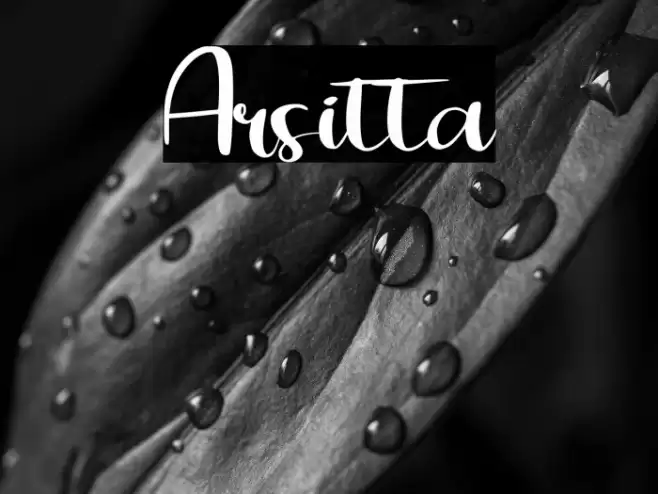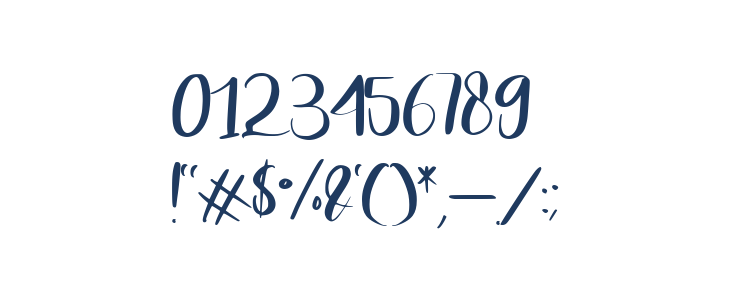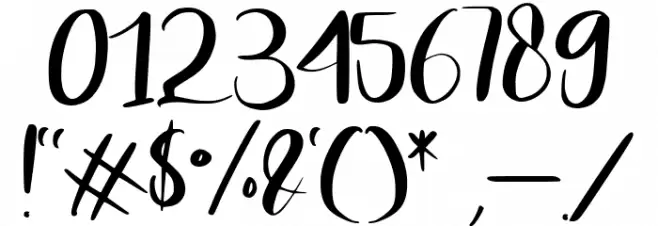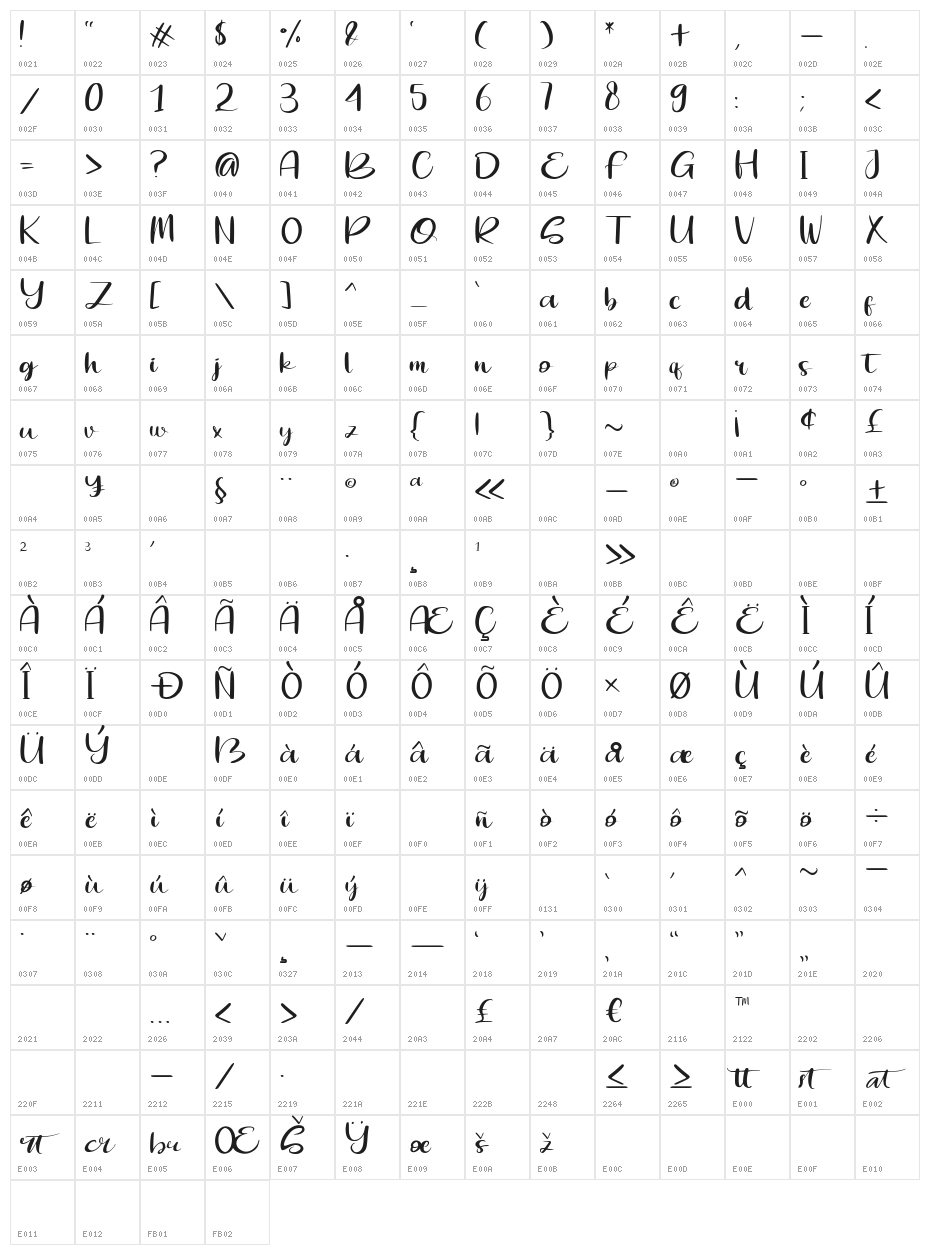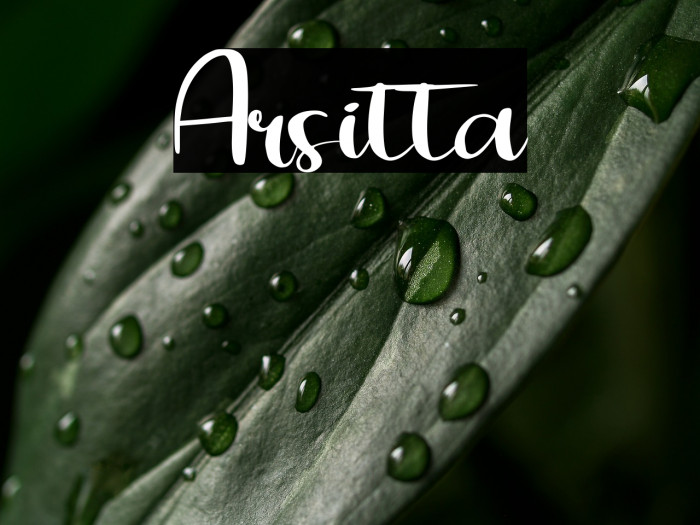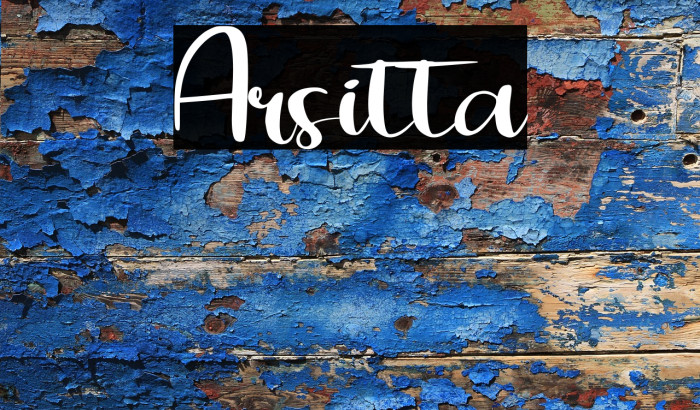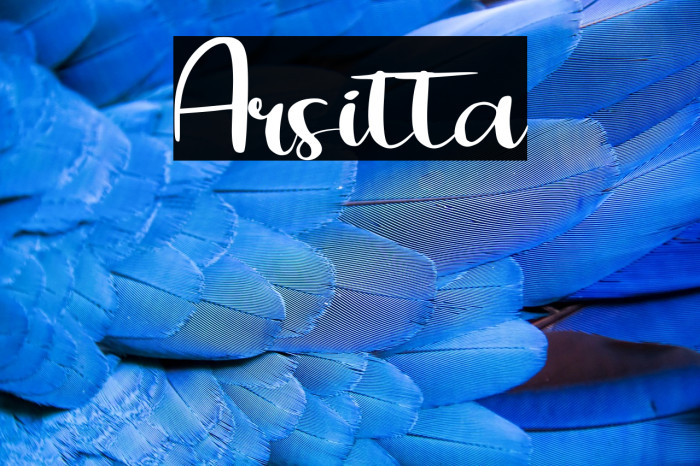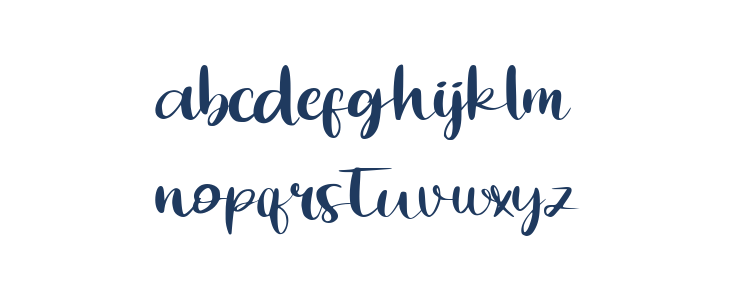
Arsitta Font
Arsitta Description
This font features a lively and expressive script style, characterized by its fluid and dynamic strokes. The uppercase letters are bold and slightly condensed, with a playful yet elegant flair. The lowercase letters maintain a consistent flow, enhancing readability while retaining a handwritten charm. Numbers are well-proportioned and align seamlessly with the overall aesthetic. Special characters are creatively integrated, adding versatility to the font's usage. The overall design exudes a sense of modernity and creativity, making it suitable for a variety of design projects.
A lively and expressive script font with fluid, dynamic strokes from Uncategorized fonts.
- Font: Arsitta
- Proposed Projects: Ideal for branding, invitations, greeting cards, and creative design projects.
- Use Case: Logos, Headlines, Invitations